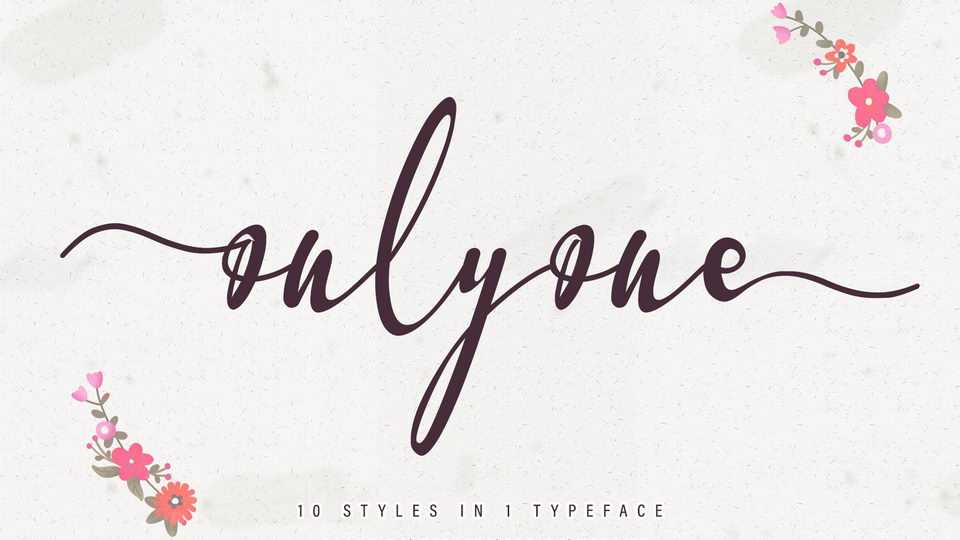
Onlyone Script Font › Fontesk – Download Grátis
Download Onlyone font, a stylish, unique, handwritten family that is easy to remember. It’s great for unique branding, photo overlays, watermarks, business cards, invitations, wedding, photography, fashion, etc.
Designer: Thomas Aradea